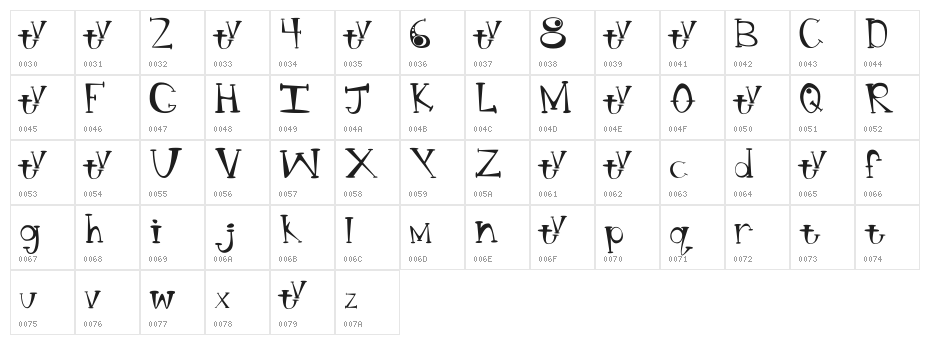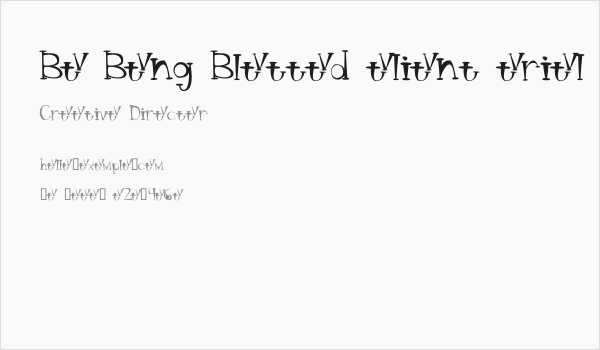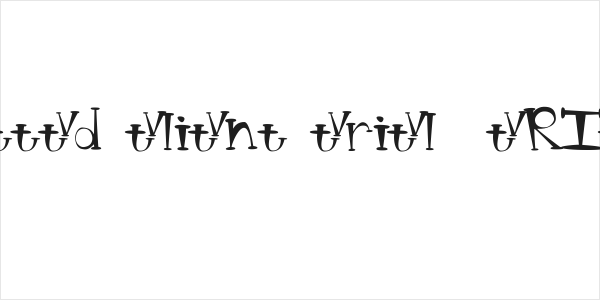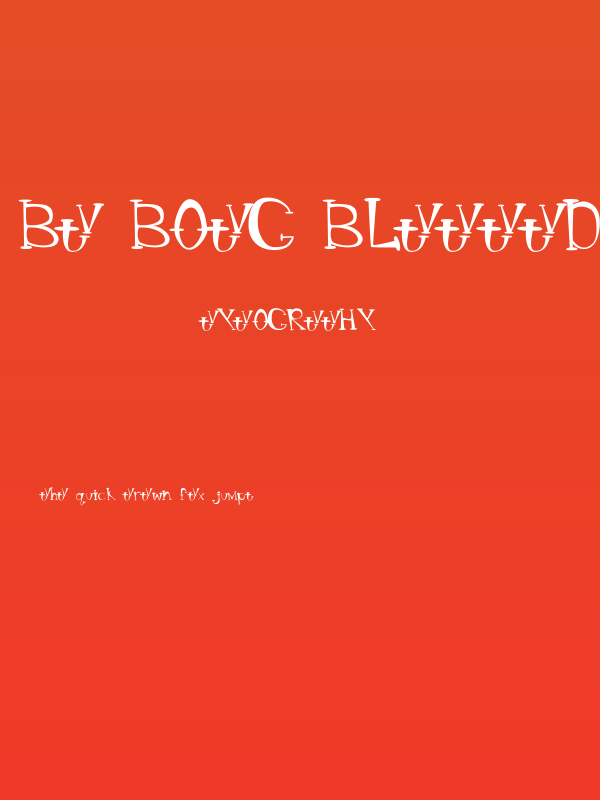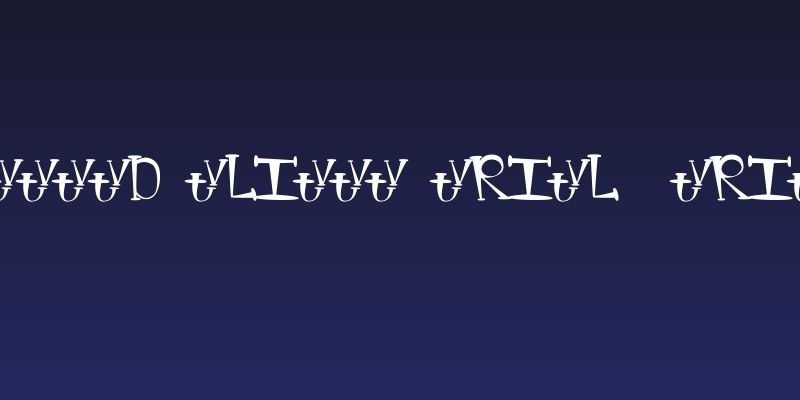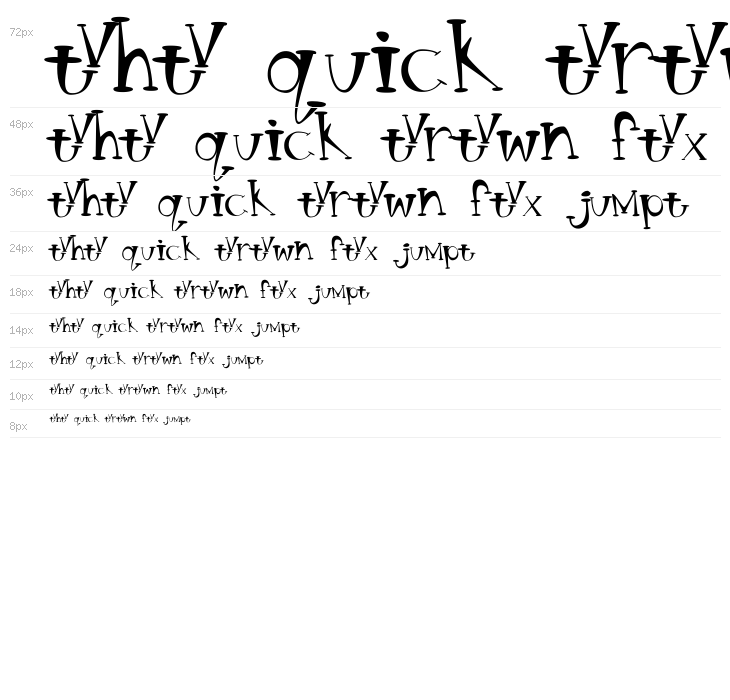
BT Bong Blasted Aliens Trial TRIAL VERSION Font
BT Bong Blasted Aliens Trial TRIAL VERSION Description
This font features a playful and whimsical design, characterized by its exaggerated and irregular letterforms. Each character exhibits a unique and quirky style, with varying stroke thicknesses and unexpected curves. The font's overall appearance is lively and dynamic, making it stand out with its unconventional shapes and artistic flair. The uppercase and lowercase letters maintain a consistent theme, while the numbers and special characters complement the font's eccentric nature. This font is ideal for projects that require a fun and creative touch.
| Proposed Projects | Ideal for children's books, playful branding, creative posters, and whimsical invitations. |